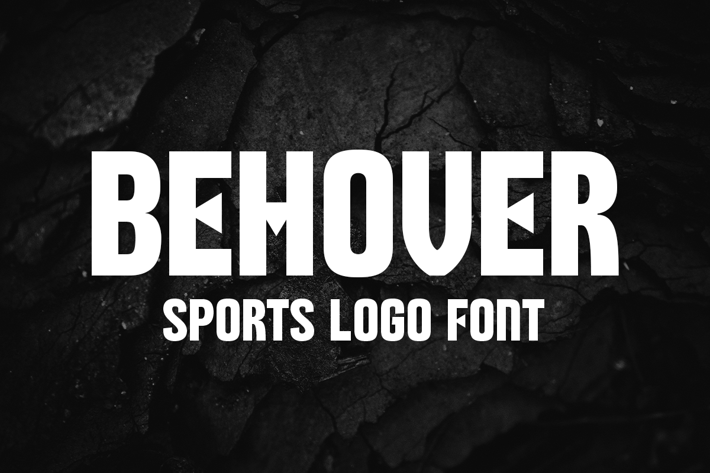
Behover - Sports Logo Font
Behover is a bold with sans style font, comes with mix lowercase and uppercase to make your design easier and strong bold character. Suitable for logotype, esport logo, or anything about display and headline. Happy Design! :)